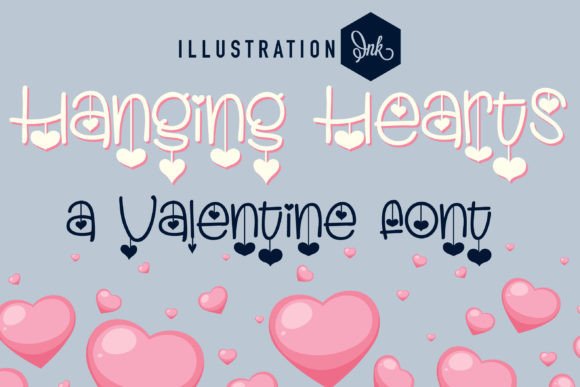
Embrace the Charm of Hanging Hearts: A Font that Radiates Love and Joy
Prepare to be captivated by Hanging Hearts, an extraordinary decorative font that exudes both playfulness and sophistication. As a creation of Illustration Ink, this exquisite typeface boasts a unique handwritten style that immediately captures the eye. Its most distinctive feature lies in the charming hearts meticulously placed throughout each character.
Indulge in the Endless Versatility of Hanging Hearts:
- Love Letters that Captivate: Express your heartfelt emotions in a way that leaves a lasting impression. Hanging Hearts adds a touch of adoration and warmth to your love letters, making them a true testament to your affection.
- Unforgettable Invitations: Create invitations that reflect the love and joy of your special occasion. Whether it's a wedding, a birthday celebration, or a milestone anniversary, Hanging Hearts will add a layer of enchantment to your invitations, ensuring they become cherished keepsakes.
- Greeting Cards that Warm Hearts: Elevate your greeting cards with the whimsical charm of Hanging Hearts. Its delicate strokes and playful hearts will make your messages feel extra special, spreading love and cheer to all those who receive them.
- Social Media Posts that Pop: Engage your audience with visually captivating social media posts that feature Hanging Hearts. Its distinctive design will make your posts stand out from the crowd, attracting attention and encouraging engagement.
- Creative Scrapbooking and Journaling: Transform your scrapbooking and journaling into a heart-filled adventure. Hanging Hearts adds a personal touch to your memories and stories, bringing a smile to your face every time you revisit them.
- Handmade Crafts that Enchant: Unleash your creativity and incorporate Hanging Hearts into your handmade crafts. From personalized gifts to home décor, this font will add a touch of love and warmth to all your creations.